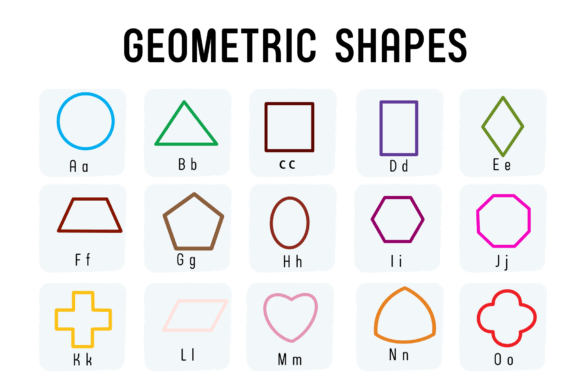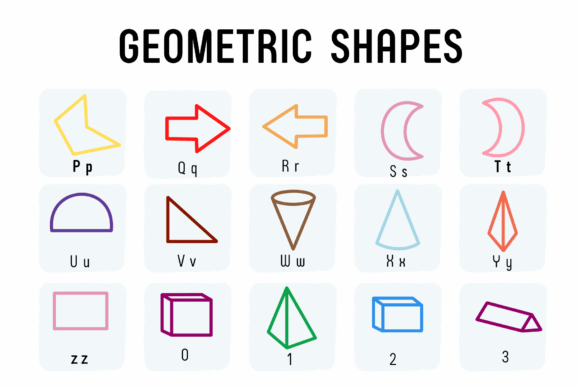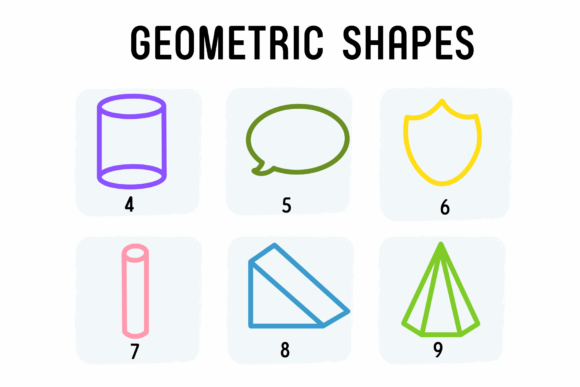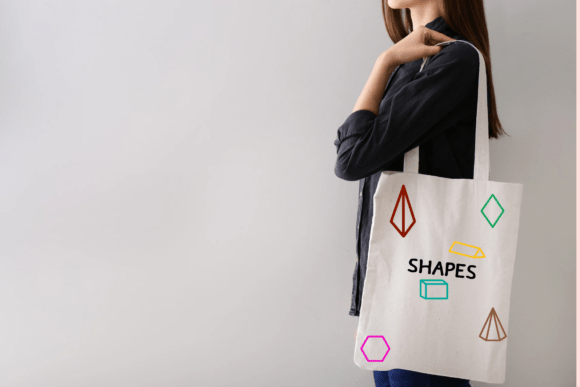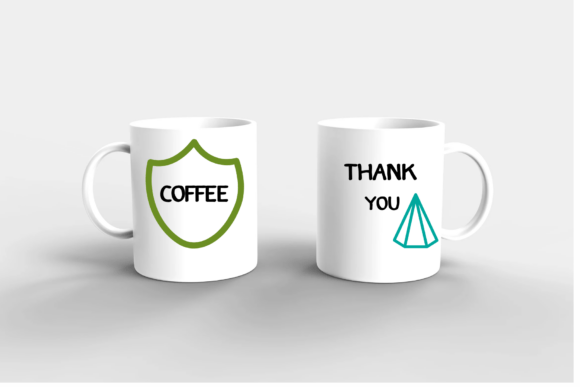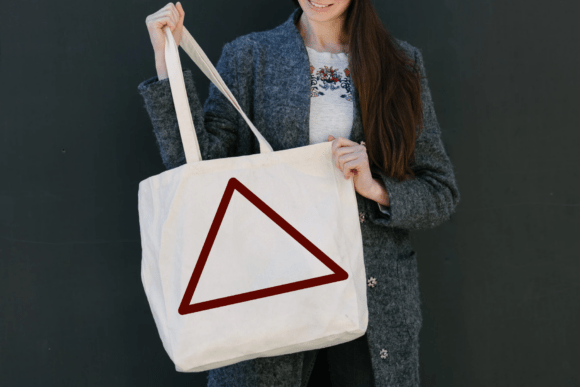
Unlock Creative Possibilities with Geometric Shapes Font
Are you a designer, crafter, or DIY enthusiast looking for a unique and versatile font to elevate your creative projects? Look no further than the Geometric Shapes Font, a dingbats font with an abstract theme that’s perfect for adding a touch of modern style to your designs. In this article, we’ll explore the features and benefits of this exciting font and show you how it can enhance your creative endeavors.
What is Geometric Shapes Font?
Geometric Shapes Font is a dingbats font that features a collection of abstract geometric shapes, including triangles, circles, squares, and more. This font is designed to add a touch of modernity and sophistication to your designs, making it perfect for a wide range of creative projects. Whether you’re creating wedding invitations, logos, decorations, or DIY crafts, Geometric Shapes Font is the perfect choice.
Key Features of Geometric Shapes Font
- Abstract Theme: Geometric Shapes Font features an abstract theme that’s perfect for adding a touch of modern style to your designs.
- Geometric Shapes: The font includes a wide range of geometric shapes, including triangles, circles, squares, and more.
- Dingbats Font: Geometric Shapes Font is a dingbats font, making it easy to use and customize.
- Scalable: The font is scalable, allowing you to use it for a wide range of projects, from small crafts to large-scale designs.
Creative Uses for Geometric Shapes Font
Geometric Shapes Font is a versatile font that can be used for a wide range of creative projects, including:
- Wedding Invitations: Add a touch of modern style to your wedding invitations with Geometric Shapes Font.
- DIY Crafts: Use Geometric Shapes Font to add a personal touch to your DIY crafts, such as decorations, cards, and gift tags.
- Logos: Create modern and sophisticated logos with Geometric Shapes Font.
- Decorations: Use Geometric Shapes Font to create custom decorations, such as wall art, garlands, and more.
Benefits of Using Geometric Shapes Font
There are many benefits to using Geometric Shapes Font in your creative projects, including:
- Unique and Modern Style: Geometric Shapes Font adds a touch of modern style to your designs, making them stand out from the crowd.
- Easily Customizable: The font is easy to customize, allowing you to adjust the size, color, and style to suit your needs.
- Versatile: Geometric Shapes Font can be used for a wide range of creative projects, making it a great addition to your font library.
- Scalable: The font is scalable, allowing you to use it for small and large-scale projects.
Tips for Using Geometric Shapes Font
Here are some tips for getting the most out of Geometric Shapes Font:
- Experiment with Different Sizes: Try using Geometric Shapes Font in different sizes to add visual interest to your designs.
- Combine with Other Fonts: Combine Geometric Shapes Font with other fonts to create unique and interesting typography.
- Use in Combination with Images: Use Geometric Shapes Font in combination with images to add a touch of modern style to your designs.
- Customize the Color: Customize the color of Geometric Shapes Font to match your brand or design scheme.
| Font Name | Geometric Shapes Font |
| Author | Chada Art |
Geometric Shapes Font is a versatile and modern font that’s perfect for designers, crafters, and DIY enthusiasts. With its abstract theme and geometric shapes, this font is sure to add a touch of sophistication and style to your creative projects. Whether you’re creating wedding invitations, logos, decorations, or DIY crafts, Geometric Shapes Font is the perfect choice. So why wait? Download Geometric Shapes Font today and unlock a world of creative possibilities!